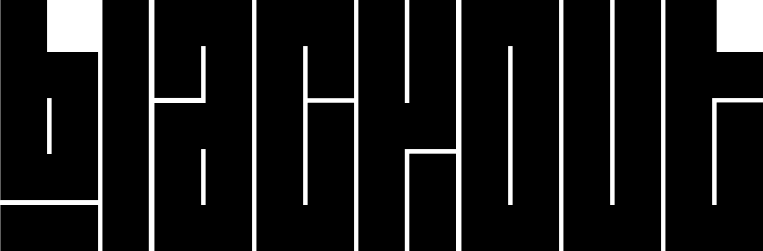
Blackout Font
It is quite obvious that due to its super bold, thick, and also intertwined letterforms, sans serif block font loses legibility, but give the devil its due, square or aggressive formation can attract a lot of attention f…
It is quite obvious that due to its super bold, thick, and also intertwined letterforms, sans serif block font loses legibility, but give the devil its due, square or aggressive formation can attract a lot of attention from the audience in designing product packaging, movie titles, car advertising, industrial advertising, and more.
Be sure that this Blackout techno font will bring the future mood back to your graphic and leave no stone unturned to distinguish your typography.
Many weights and quality glyphs. The font name is DIMENSIONS.